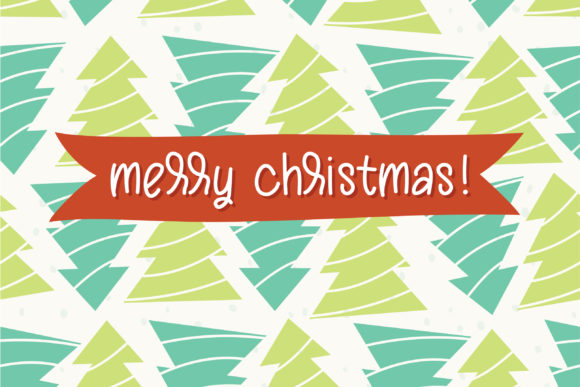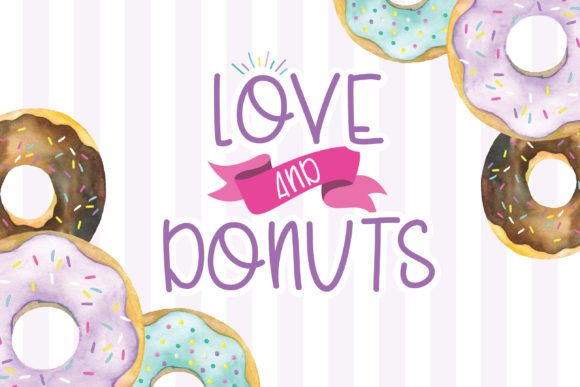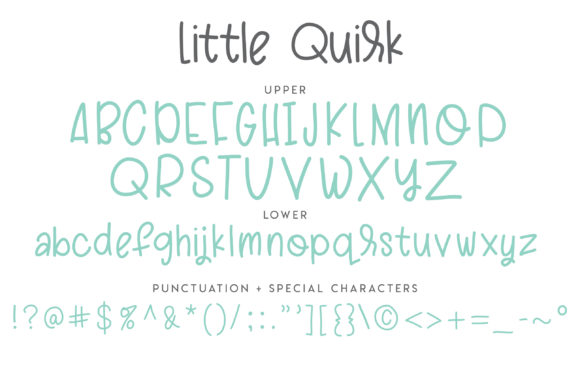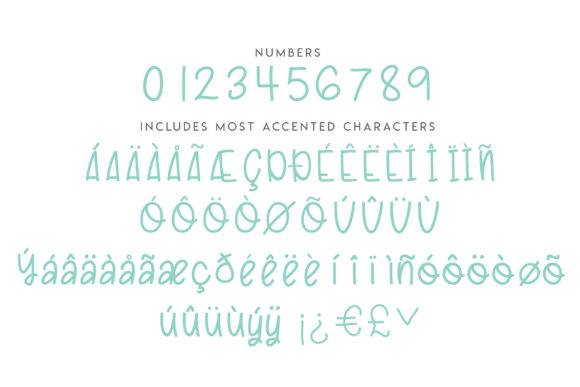
Little Quirk Font
About Little Quirk Font
Little Quirk is a sweet and friendly handwritten font full of quirk. It will deliver any message with a sense of innocence and charisma!